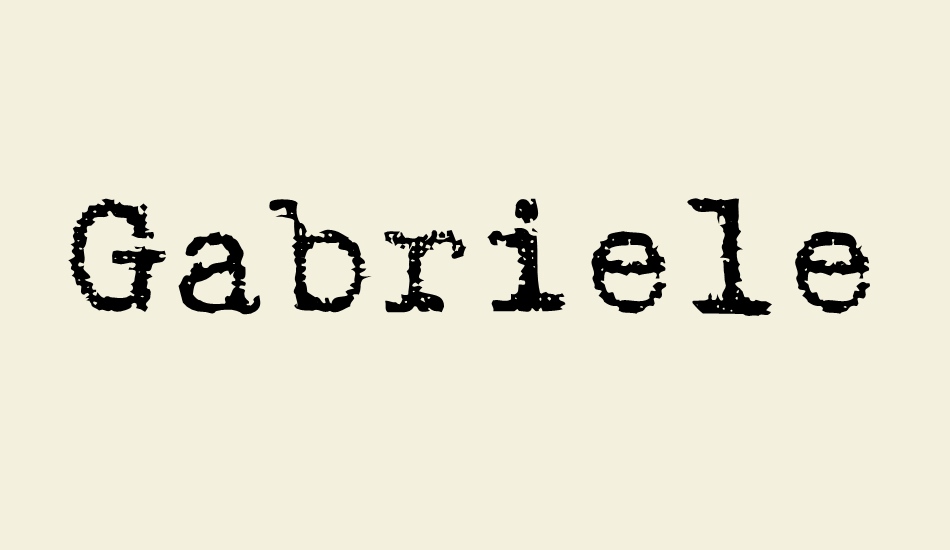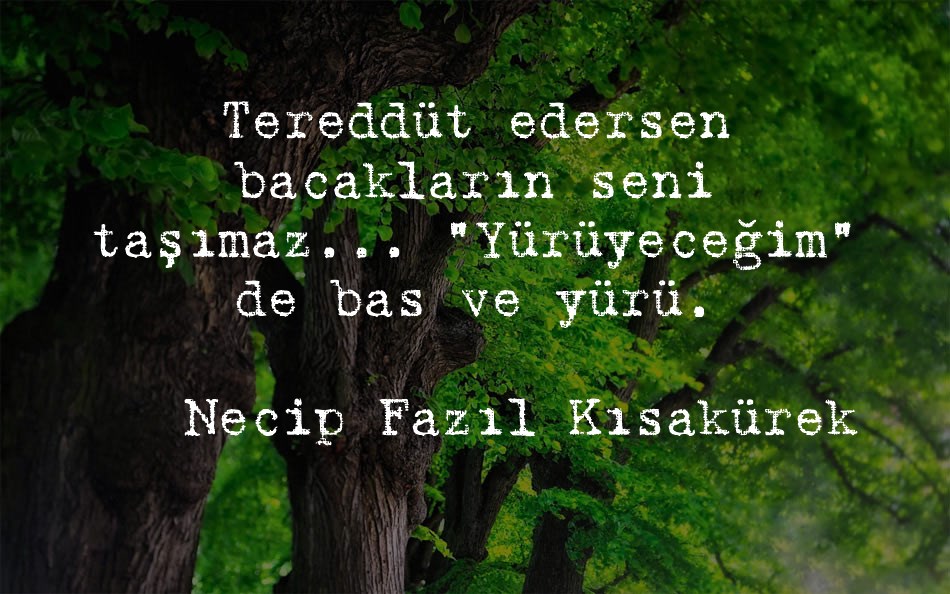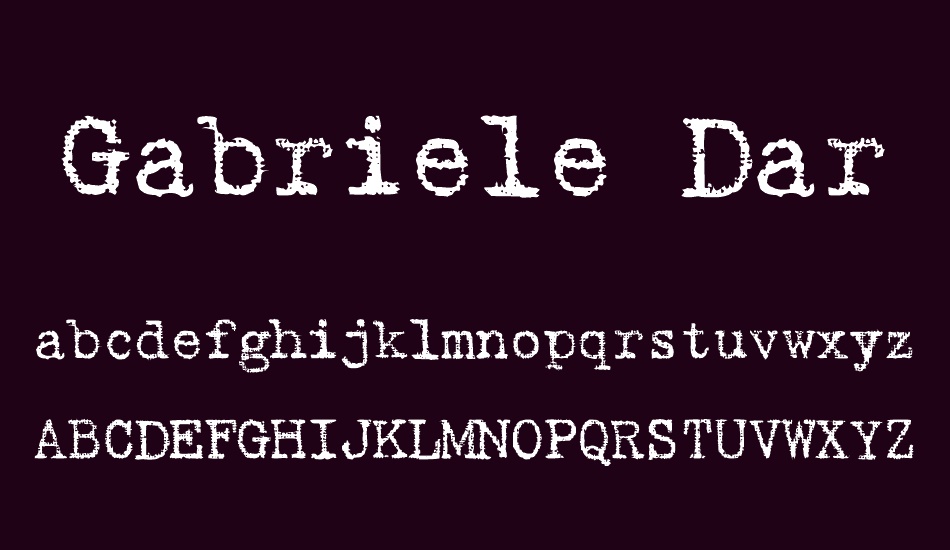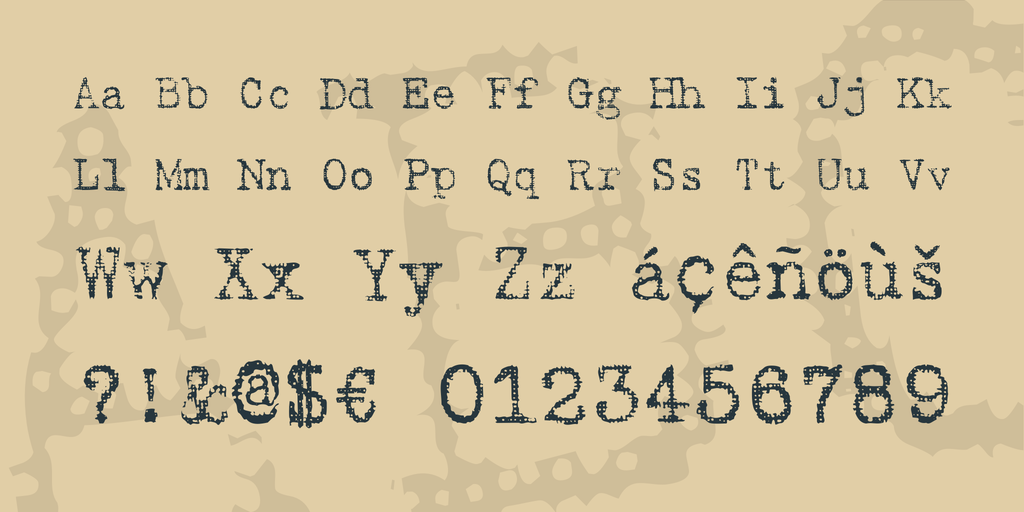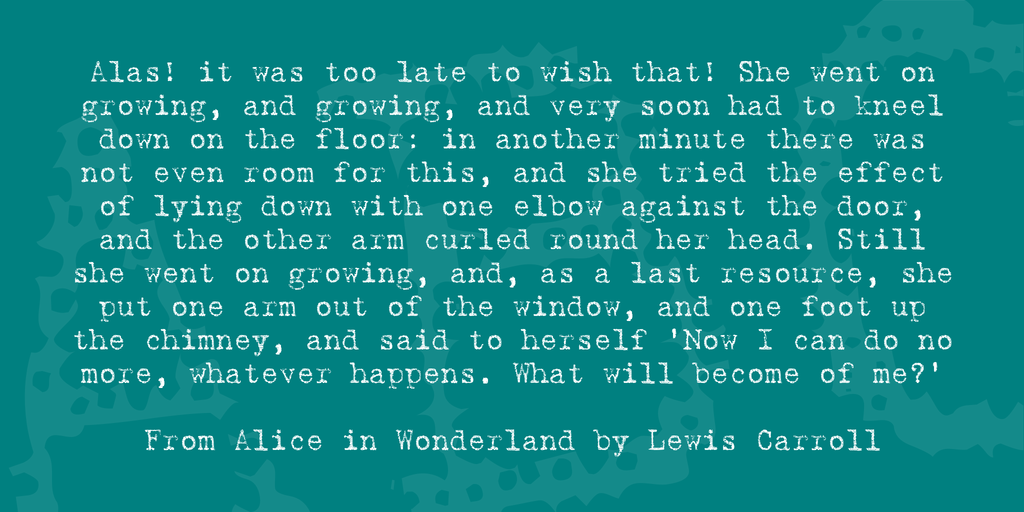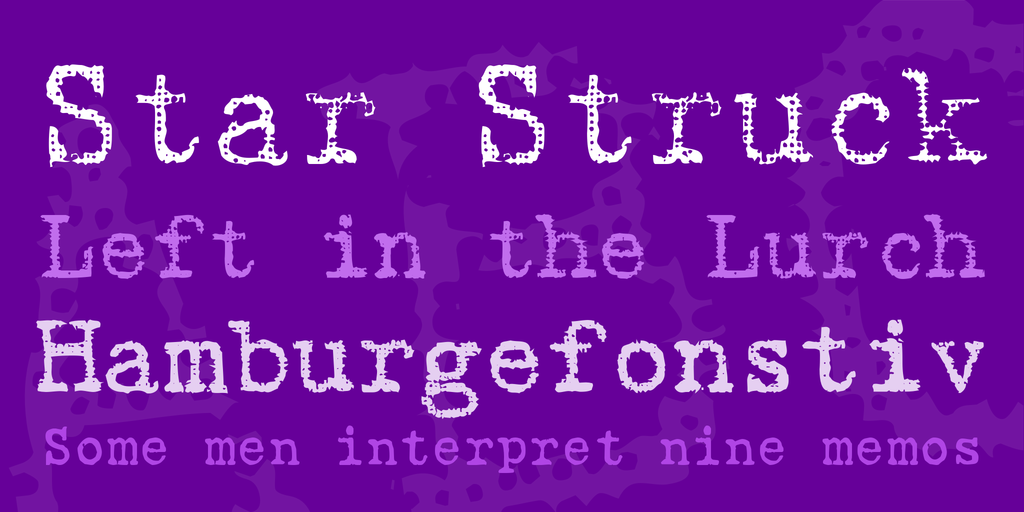
Gabriele Dark Ribbon FG font
Gabriele Font Series
Gabriele was the name of his granddaughter. In 1957 Max Grundig, German industrialist, bought the two companies Triumph and Adler and merged them into his office machine label 'Triumph Adler'. Thus, 'Gabriele' became the name of a popular series of typewriters in postwar Germany.
We have chosen this name for our series of typewriter fonts in reminiscence of those machines and all the ladies (called Gabriele or not) that used to type on them from the 1950s to the '80s.
Ah, yes, another typewriter font.
Well sort of. We are aware that there are quite a few of them around. But unlike Gabriele, most are not free for commercial use and/or have problems with umlauts and other extended characters. Gabriele has a complete West European charset, the ribbon members even many East European characters. These are monospaced fonts. The characters have all the same width - with the exception of the "ellipsis" character ("...") which is of course three spaces wide. Naturally, these fonts have and need no kerning.
The Ribbon members of the Gabriele are based on the Dave-Rakowski font "Harting". On his former font activity Dave says on his web site http://home.earthlink.net/~ziodavino/album1_009.htm:
Gabriele Bad is named after the somewhat darker and grungy look. Inside, she's really nice. Looking similar to the other two but not based on Rakowski's work. This is the darkest one of the three. She's not so good at Eastern European languages, but she can type Turkish fluently.